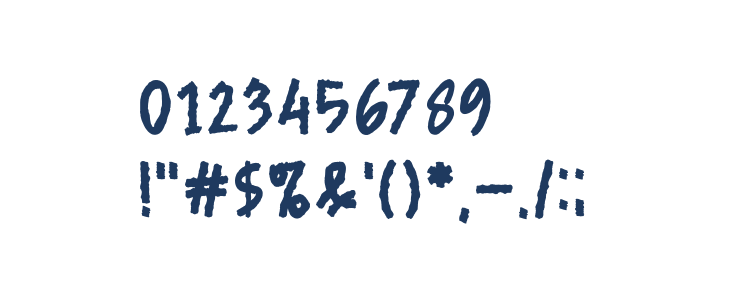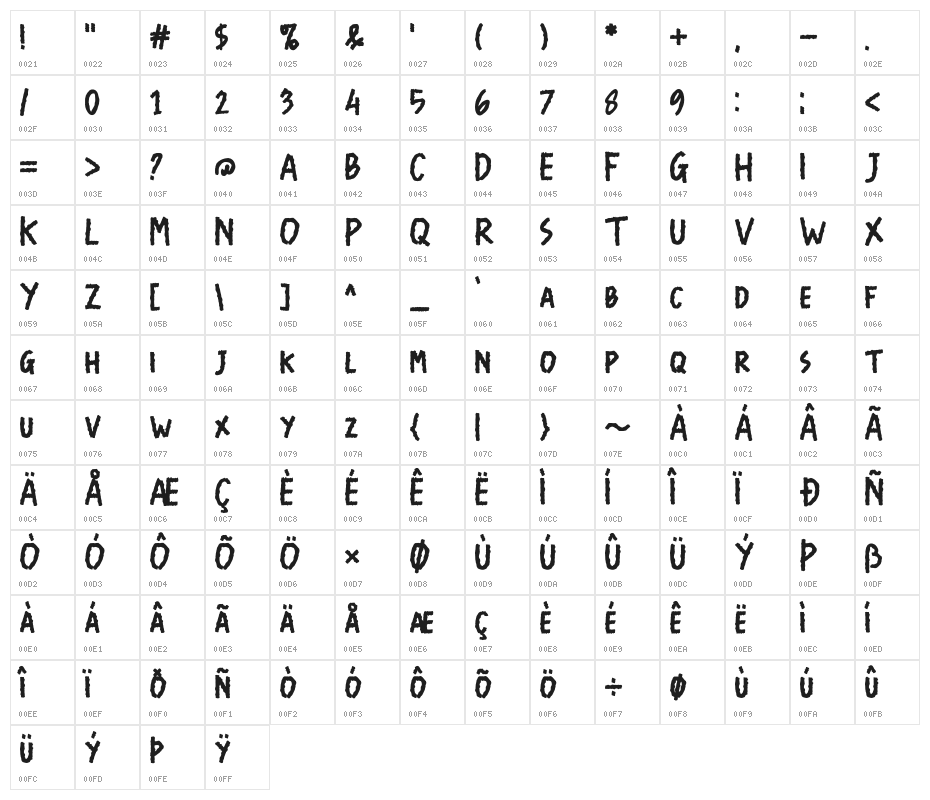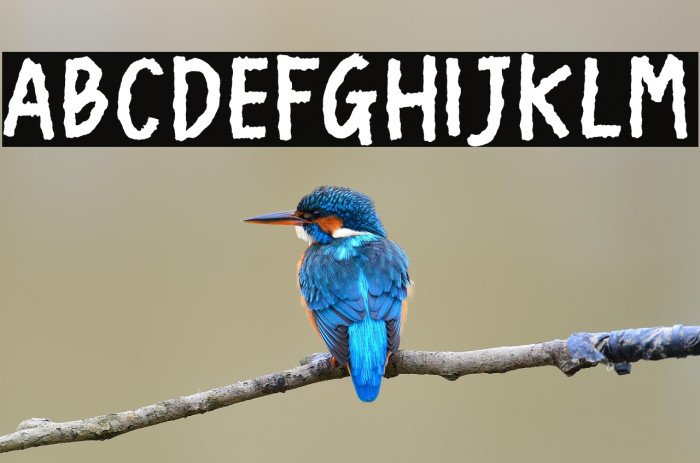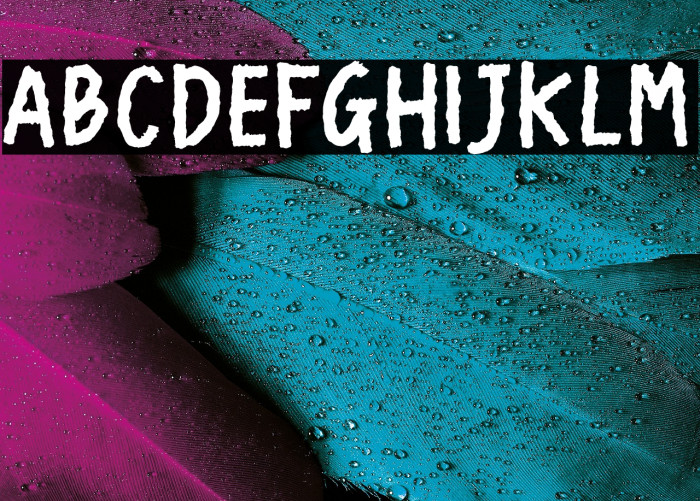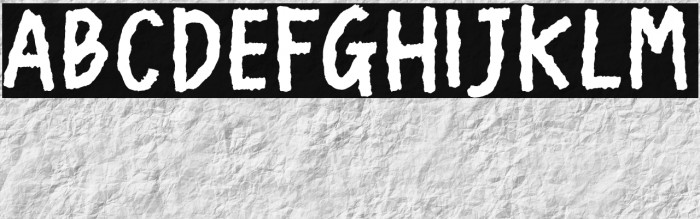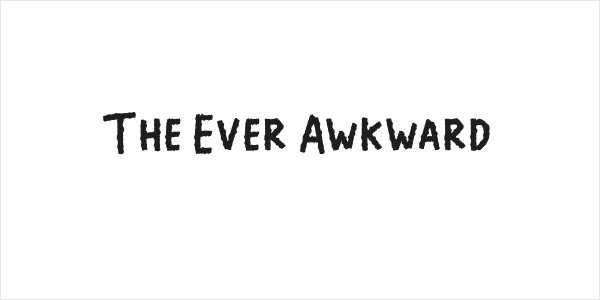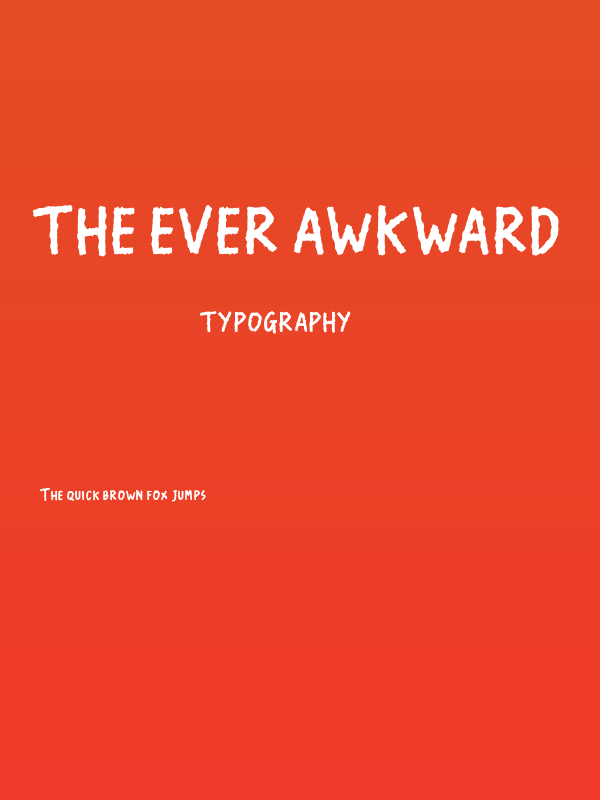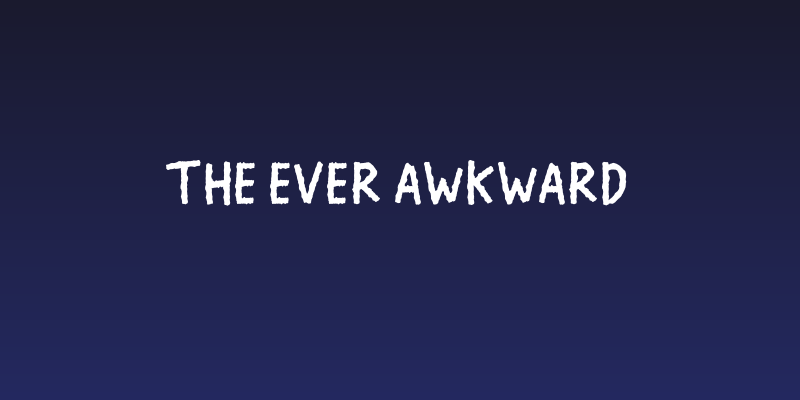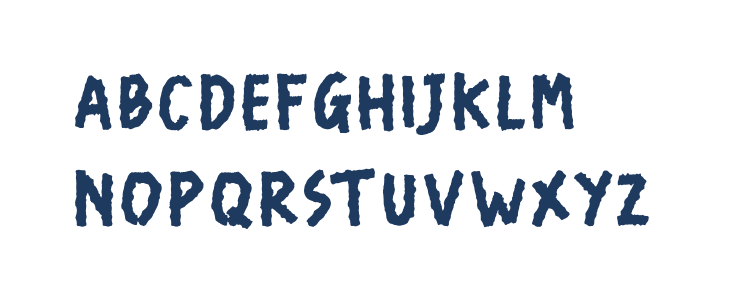
The Ever Awkward Font
The Ever Awkward Description
This font features a bold, hand-drawn style with a playful and slightly irregular appearance. The letters have a rough, textured edge that gives them a casual and informal look. The uppercase and lowercase letters maintain a consistent style, with a slight slant that adds to the dynamic feel. The numbers and special characters follow the same design, ensuring a cohesive look across all elements. The overall aesthetic is reminiscent of a handwritten note, making it ideal for projects that require a personal touch.
| Proposed Projects | Ideal for greeting cards, posters, children's books, and creative branding projects. |